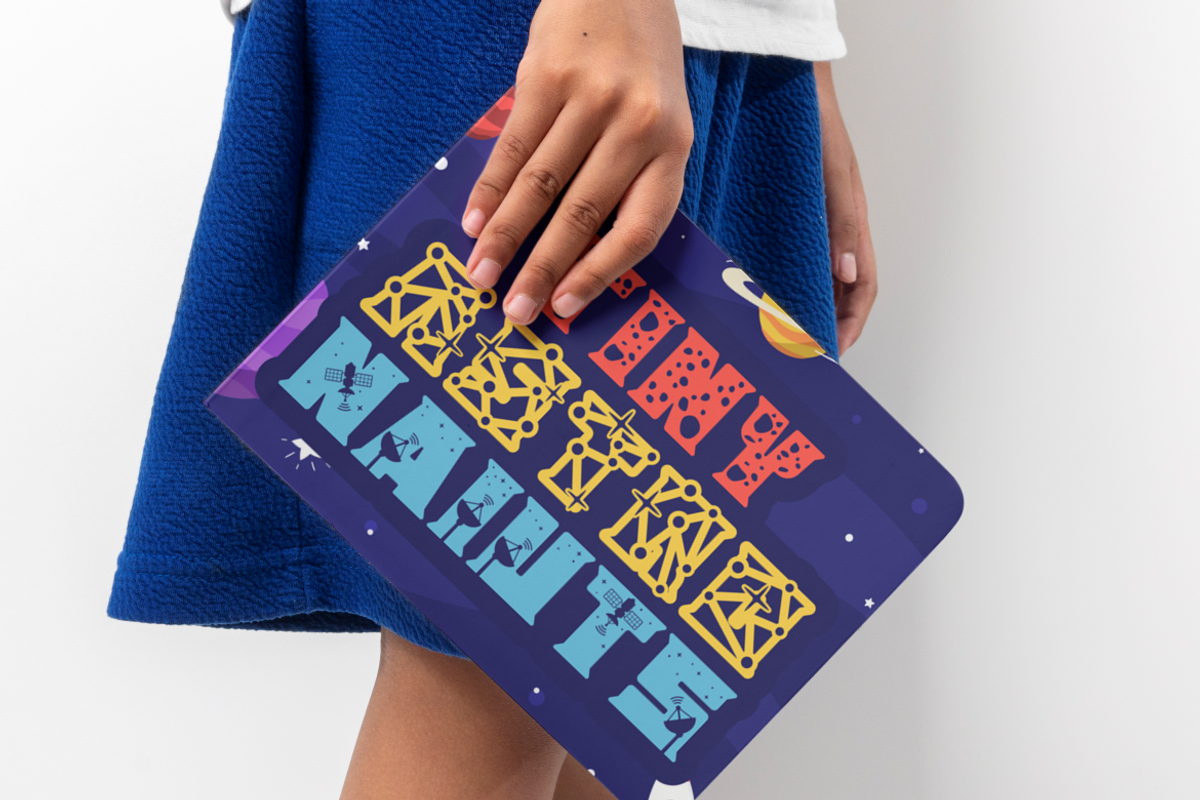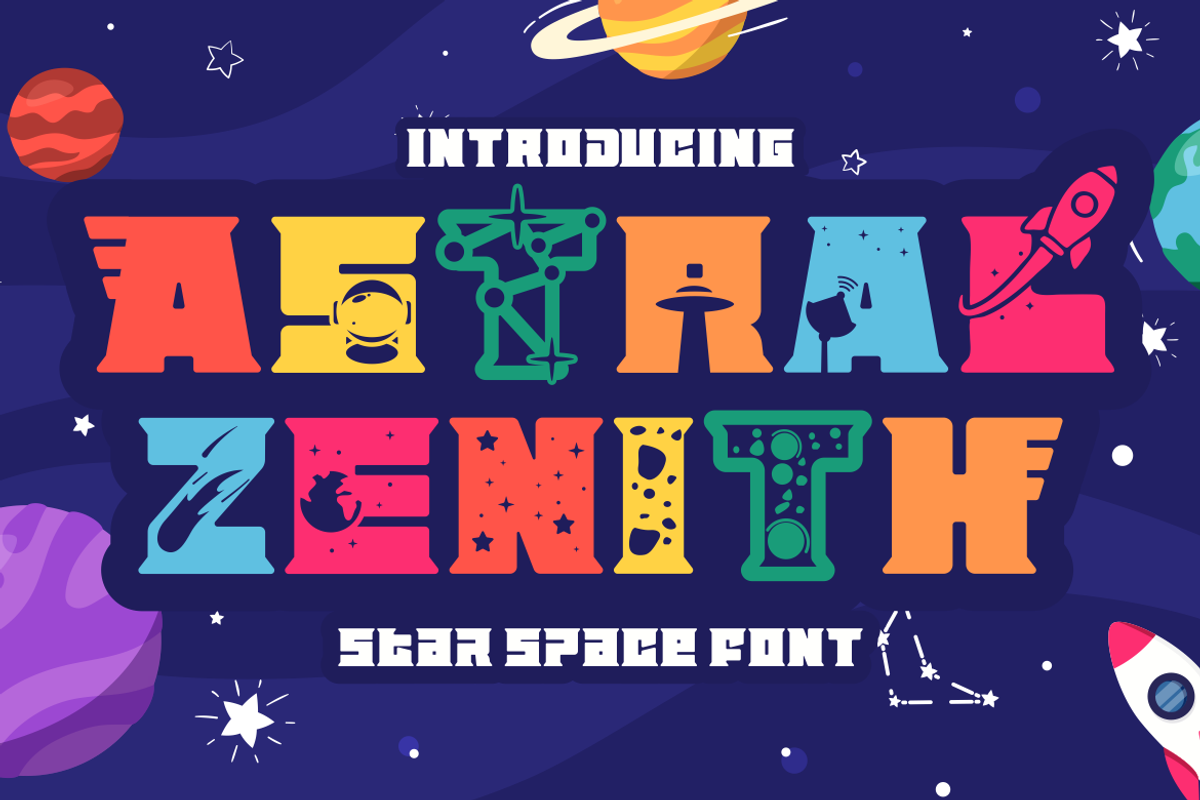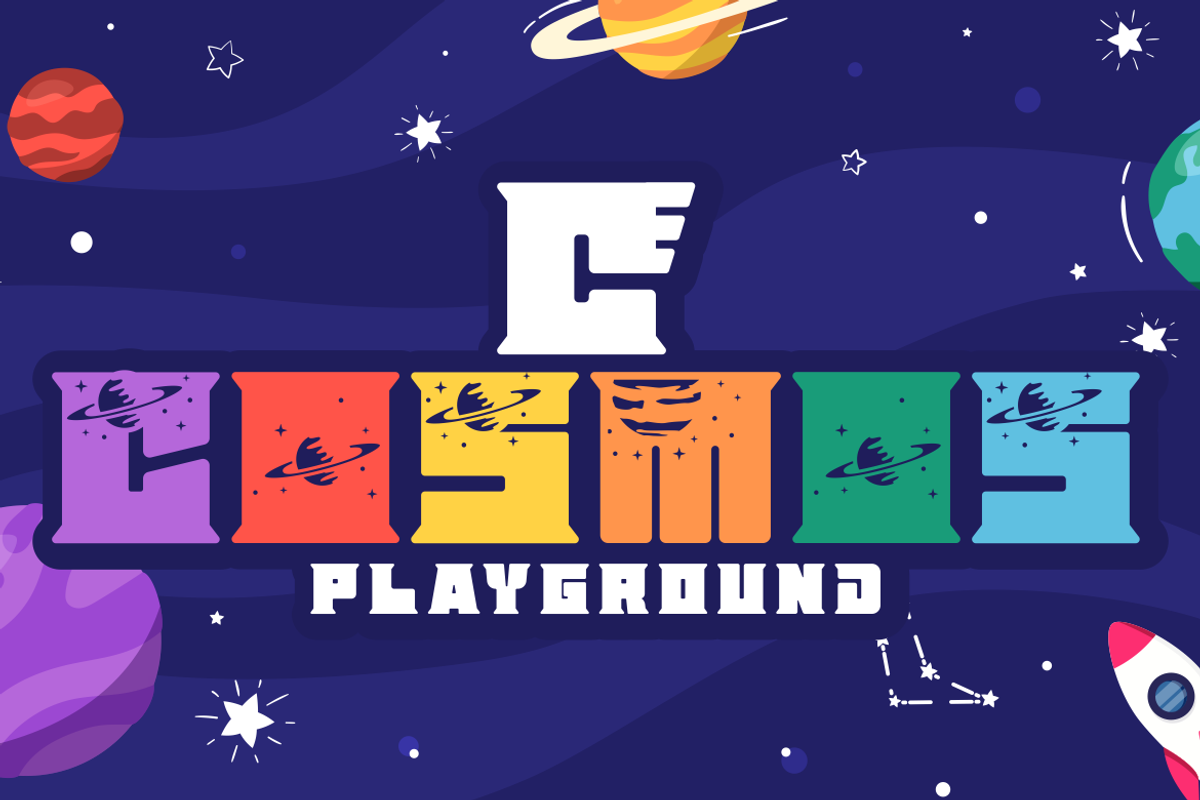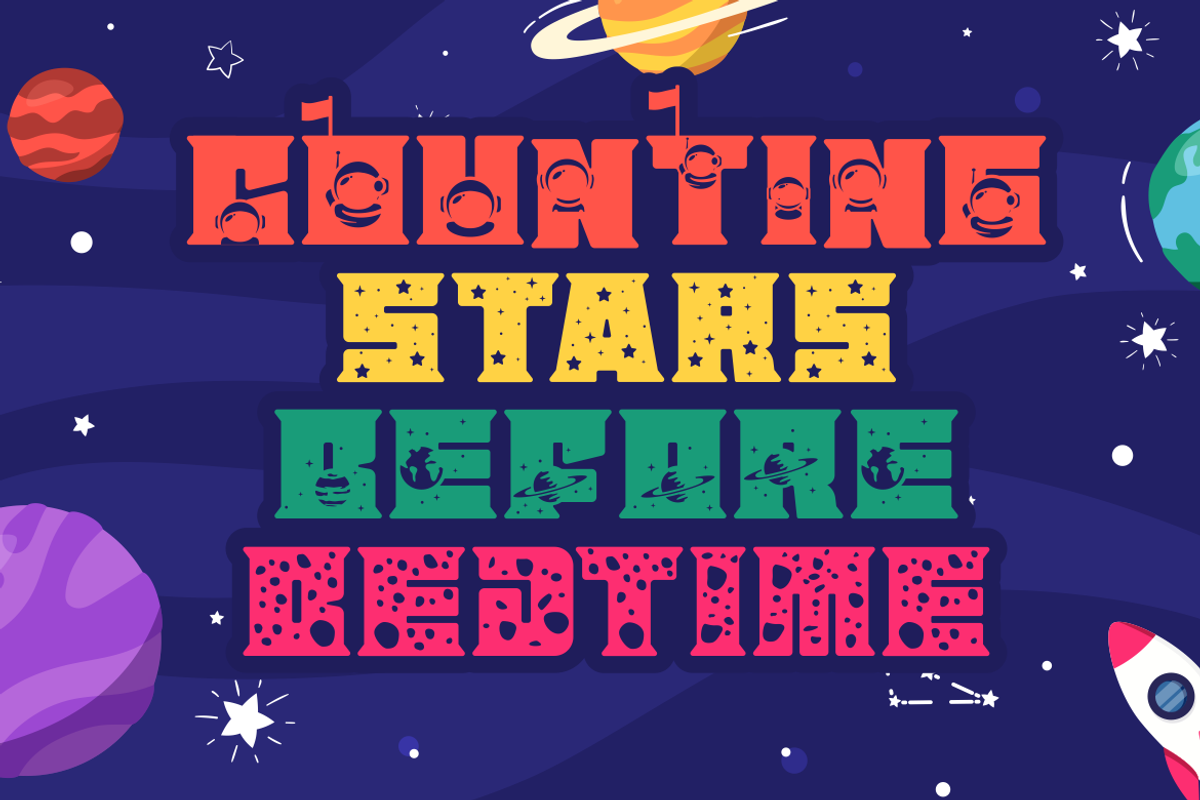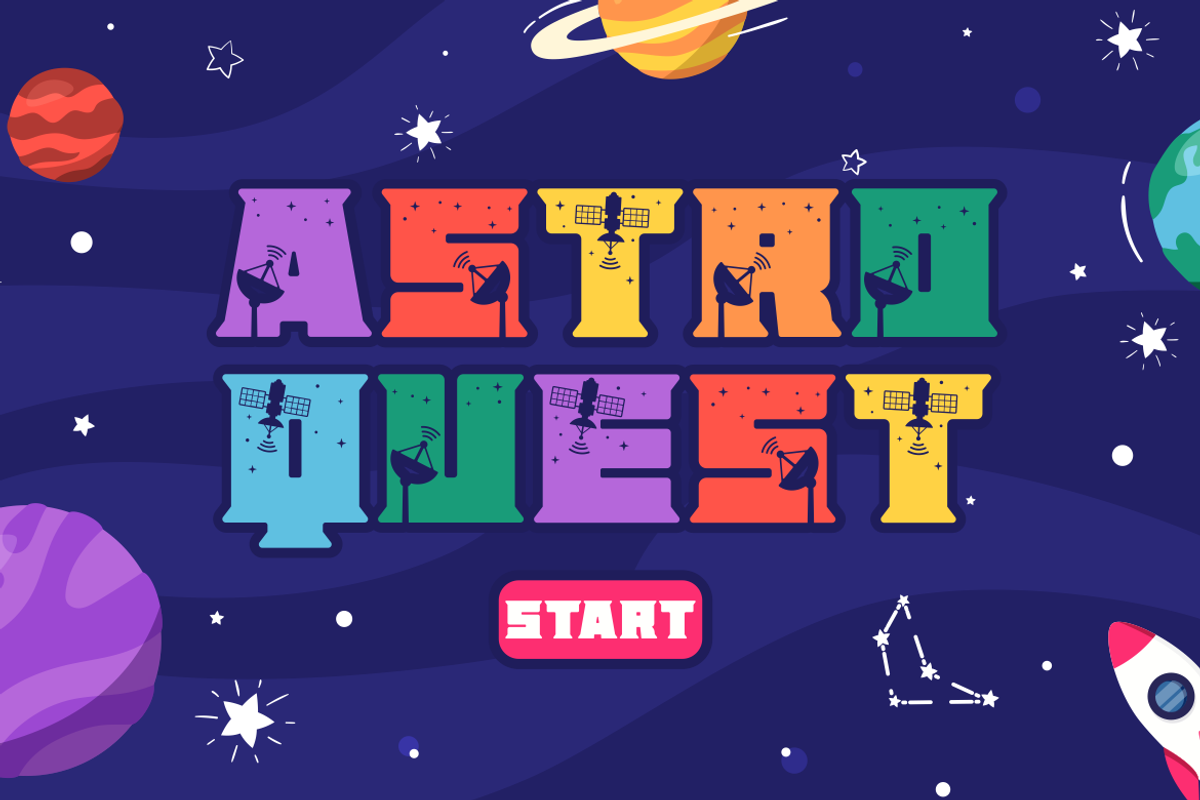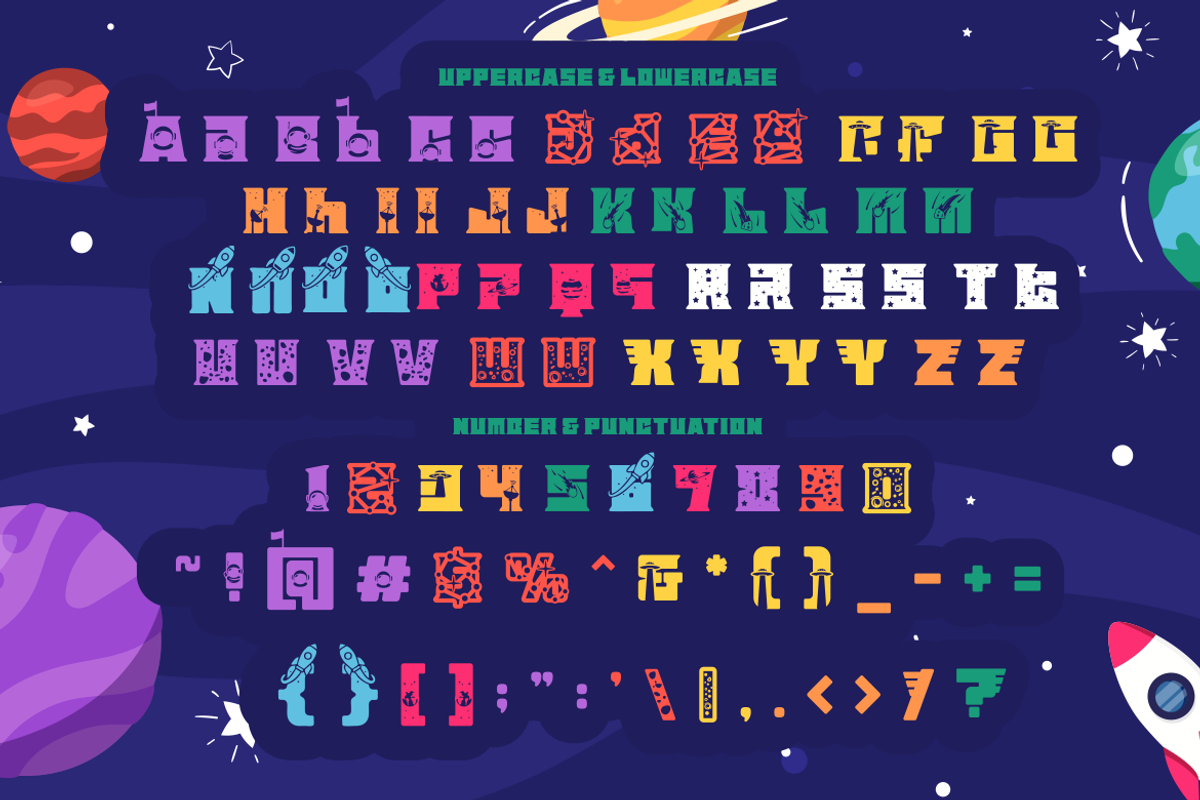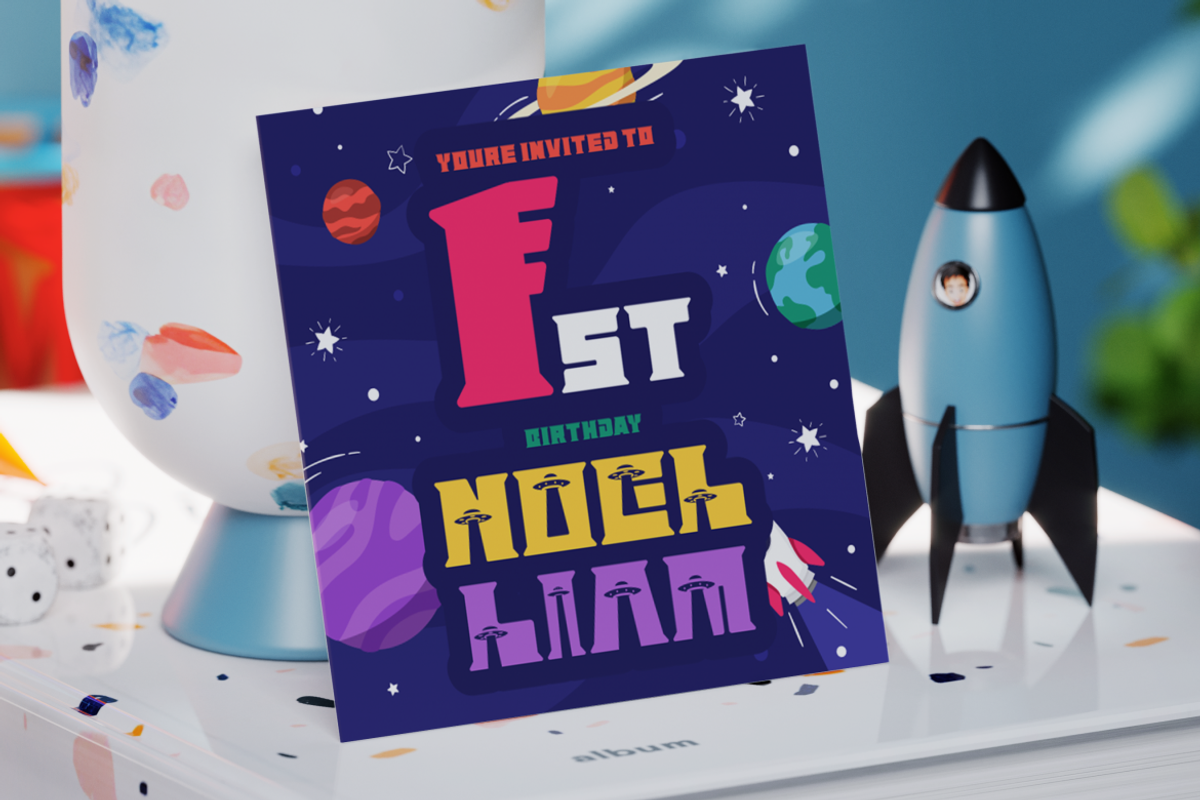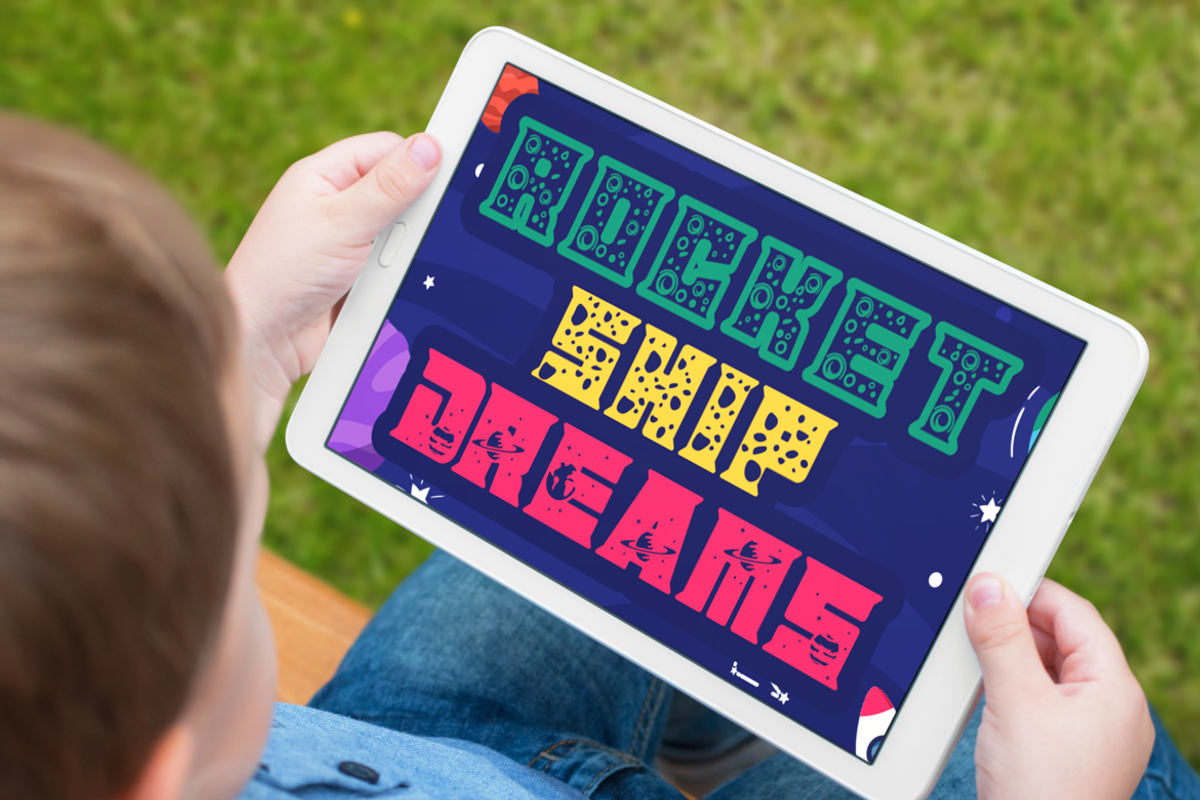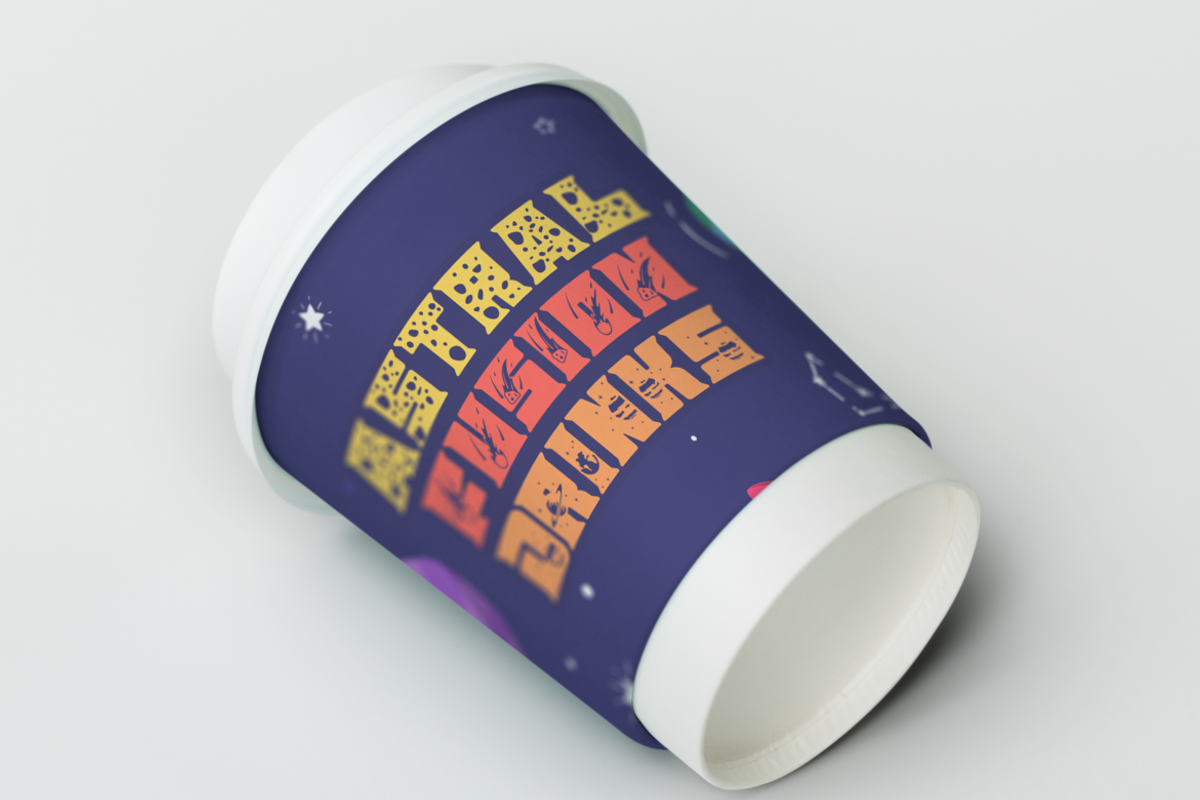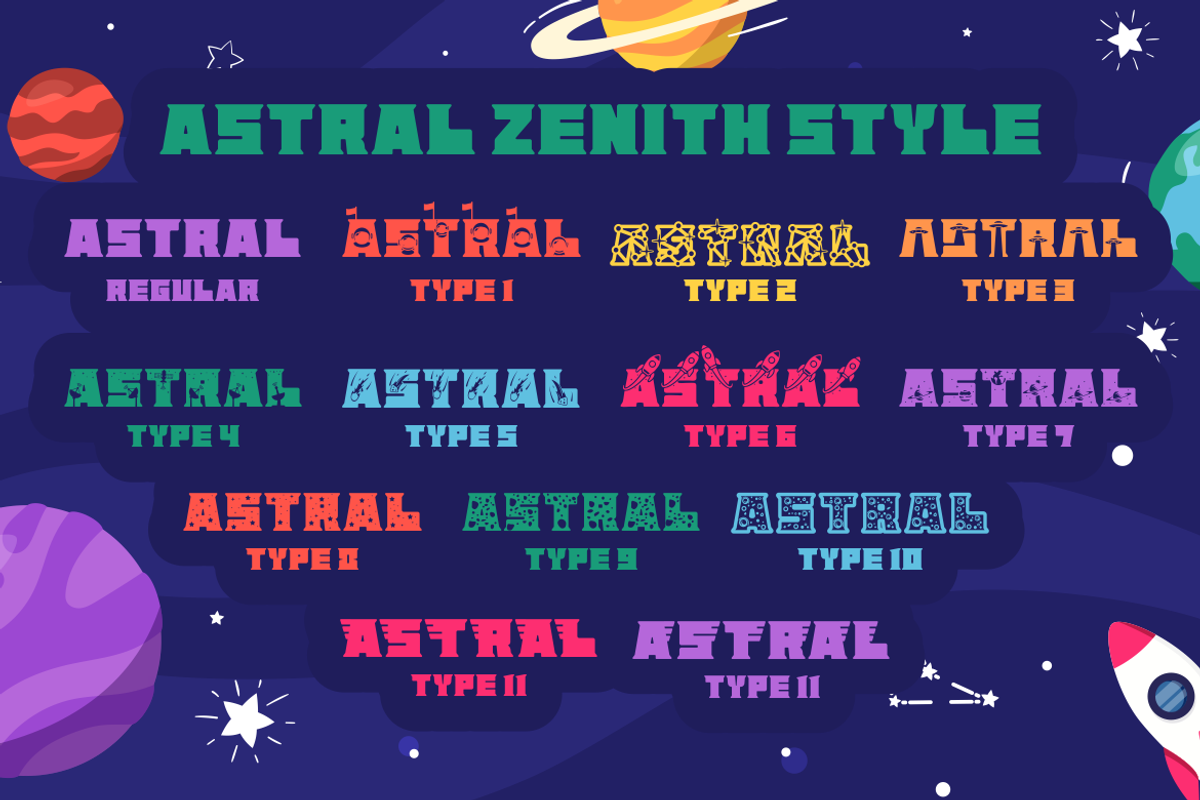
Astral Zenith - Star Space Font
Embark on a cosmic journey with Astral Zenith - Star Space Font, a typeface that captures the essence of the universe’s boundless beauty and mystery. This font is not just a collection of characters; it’s a gateway to a world where imagination takes flight among the stars. Each letter is a celebration of the cosmos, adorned with playful motifs of planets, UFOs, and rockets, all set against the deep expanse of space. The bold and quirky design of Astral Zenith makes it perfect for those who wish to infuse their projects with the wonder of the night sky.
Whether you’re crafting a logo that’s out of this world, designing an invitation to an interstellar event, or creating a title that will launch readers into a galaxy of adventure, Astral Zenith is your co-pilot in creativity. Its decorative elements are ideal for children’s books, where every page is an opportunity to spark curiosity and joy. For crafters, this font is a treasure trove of inspiration, turning every creation into a playful exploration of space. With Astral Zenith, your designs will boldly go where no font has gone before!